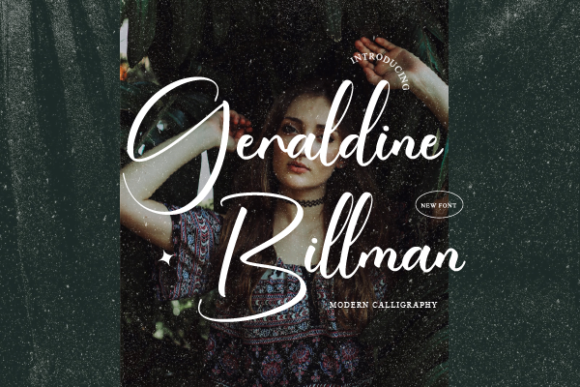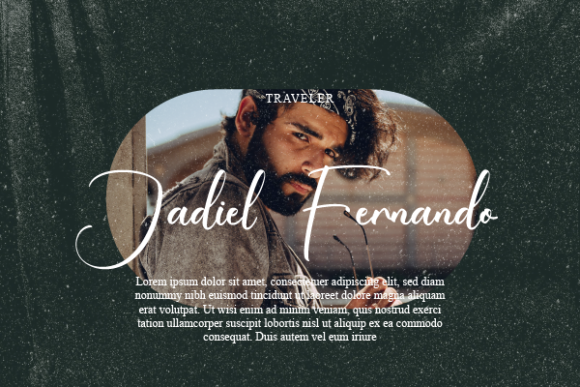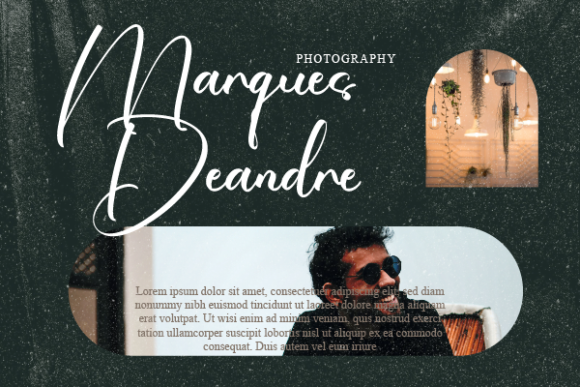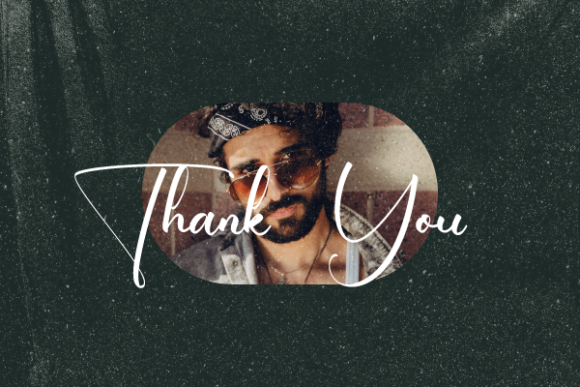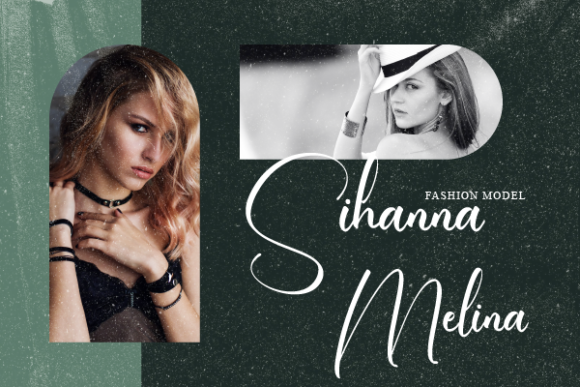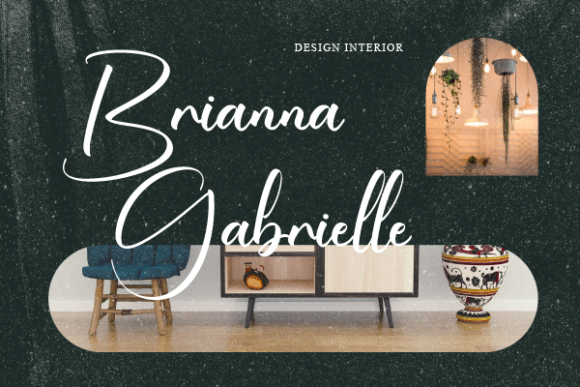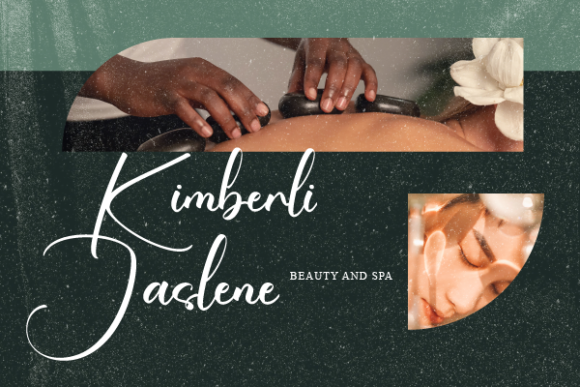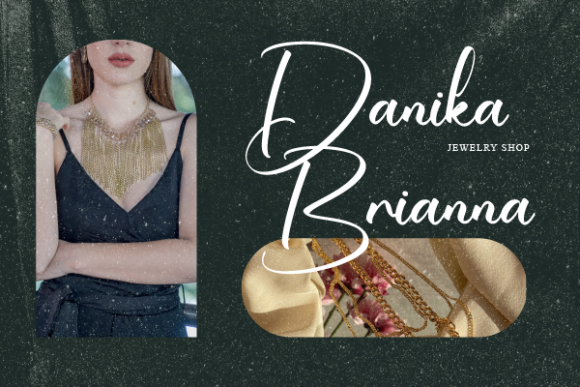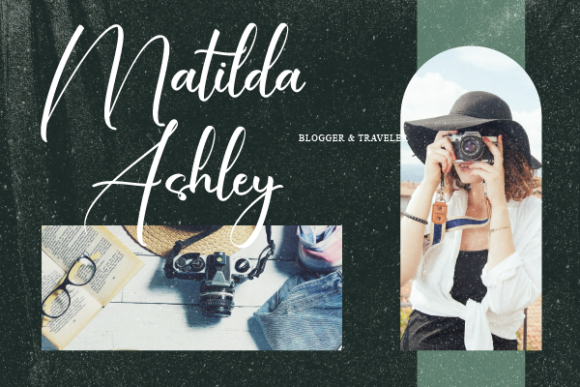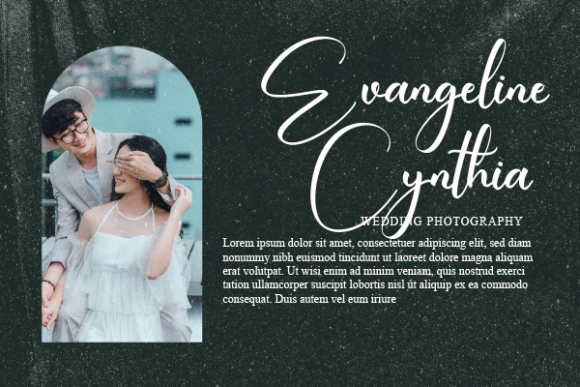
Geraldine Billman Font
About Geraldine Billman Font
“Geraldine Billman” is a free-flowing script font designed to infuse a sense of fluidity and elegance into various design projects. Tailored for applications like packaging products, invitation cards, flyers, mockups, event posters, and more, this font brings forth high-quality vibes that elevate the visual appeal of any project.
The font’s free-flowing script design lends an air of grace and movement to your creations. Its balanced character adds a touch of harmony to the overall visual composition, making it adaptable to different design contexts.
Particularly well-suited for packaging products, “Geraldine Billman” enhances labels, tags, and packaging with a touch of sophistication. It’s equally adept at adding a personal and refined touch to invitation cards. When incorporated into flyers and event posters, the font’s distinctive style captures attention and conveys a sense of high-quality aesthetics.
The well-crafted and balanced characters of the font ensure its compatibility with a wide range of design projects. Its versatility allows it to seamlessly integrate into various creative endeavors, enhancing the overall visual impact.
In summary, “Geraldine Billman” is a font that brings free-flowing elegance and high-quality vibes to different design applications. Its beautiful and balanced character makes it a versatile tool for designers seeking to enhance their projects across a diverse range of contexts. Whether you’re working on packaging, invitations, flyers, or other creative ventures, “Geraldine Billman” adds a touch of sophistication that enriches the visual allure of your designs.